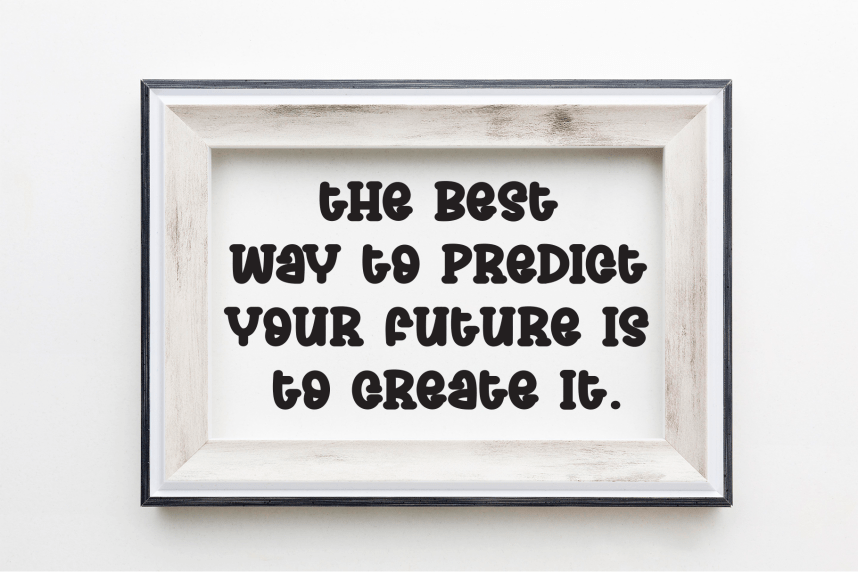
Bunny Script Font
Bunny Script Font is a sweet and friendly handwritten display font. Cute and fun, this font is ideal for writing wedding invitations, cards, or any other design that might need a playful touch!